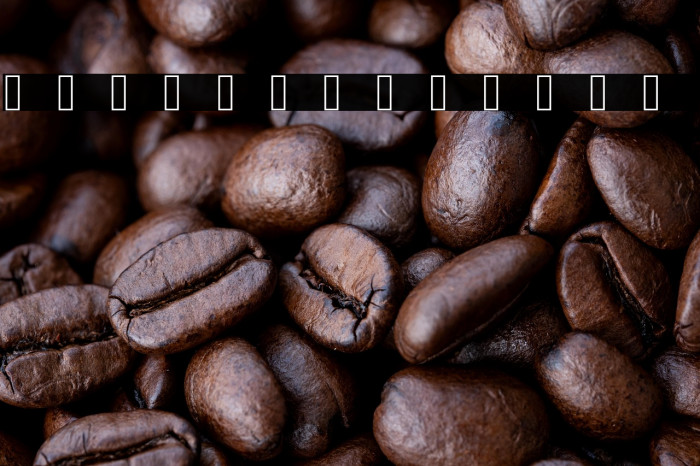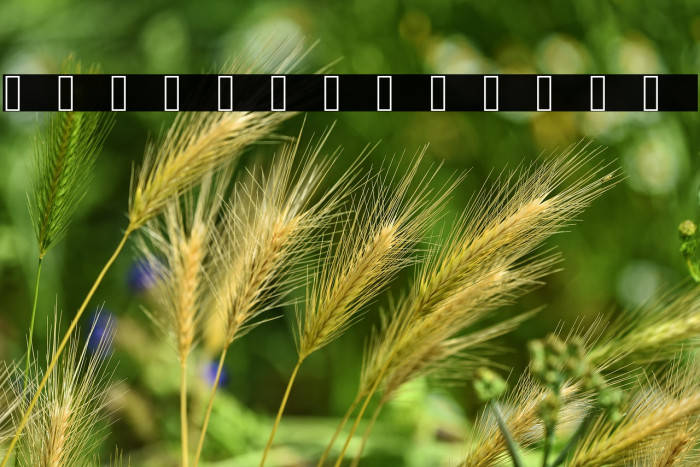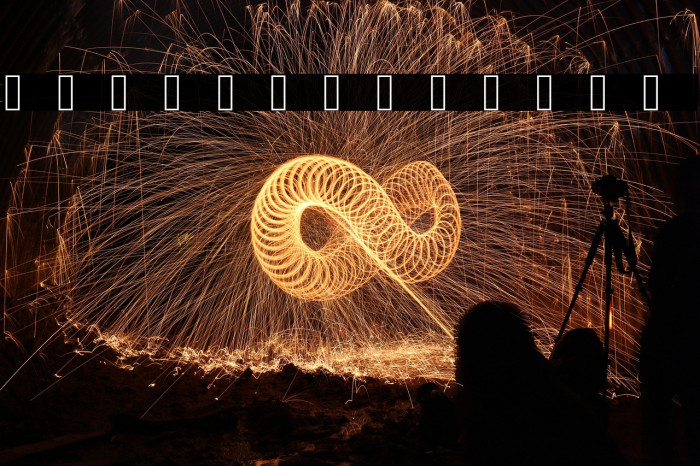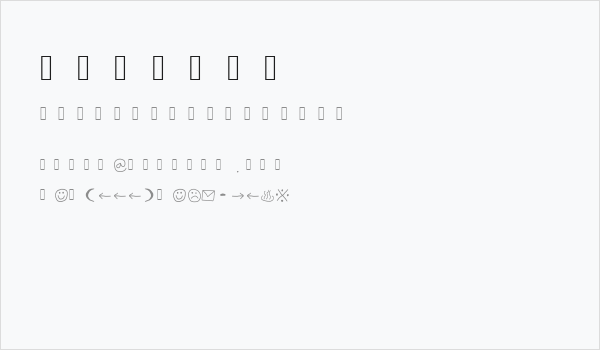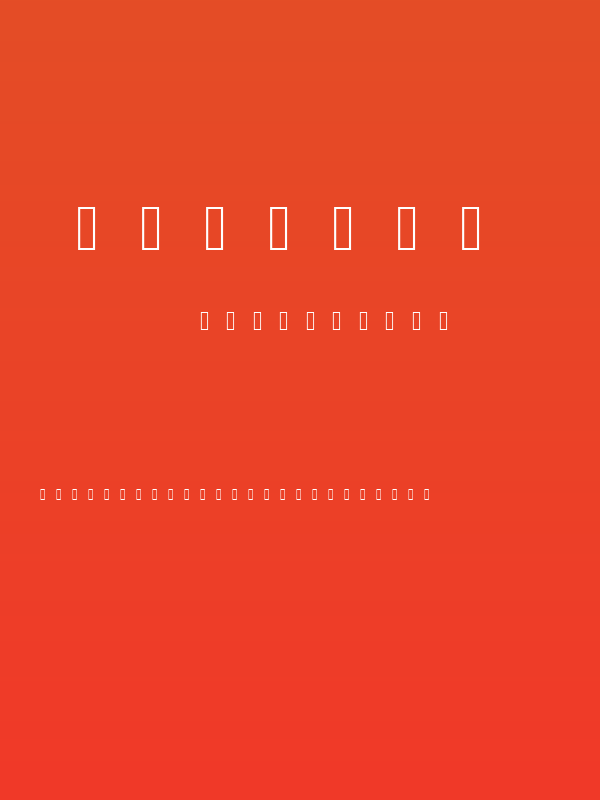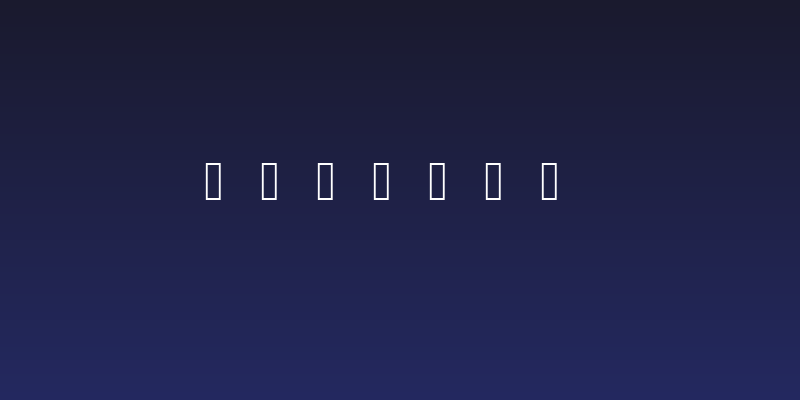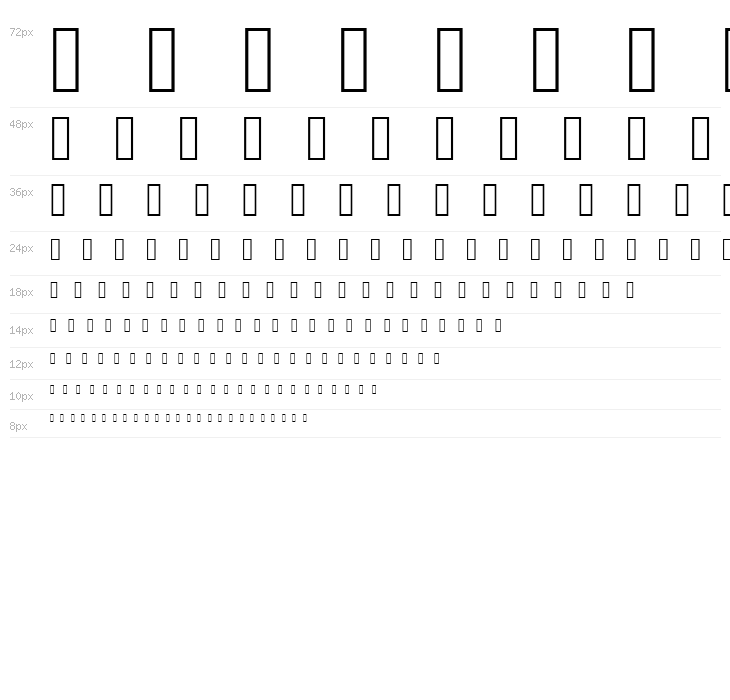
ukikusa Font
ukikusa Description
This font is a playful and whimsical collection of hand-drawn symbols and icons, featuring a variety of expressive faces, arrows, and other unique shapes. The characters are drawn with a casual, freeform style that gives them a lively and informal appearance. The strokes are consistent in thickness, providing a uniform look across all symbols. The design is reminiscent of doodles or sketches, making it ideal for projects that require a touch of creativity and fun. The font's simplicity and charm make it suitable for informal communications, creative projects, and designs that aim to convey a sense of spontaneity and lightheartedness.
| Proposed Projects | Ideal for greeting cards, children's books, playful posters, and creative social media graphics. |